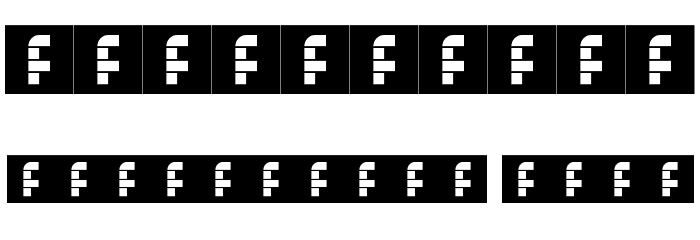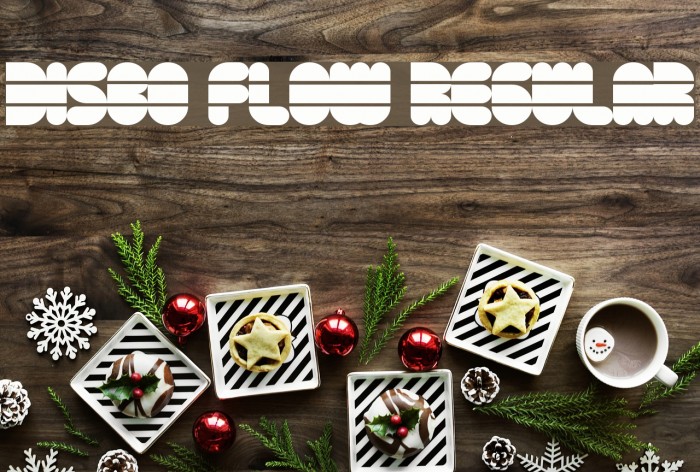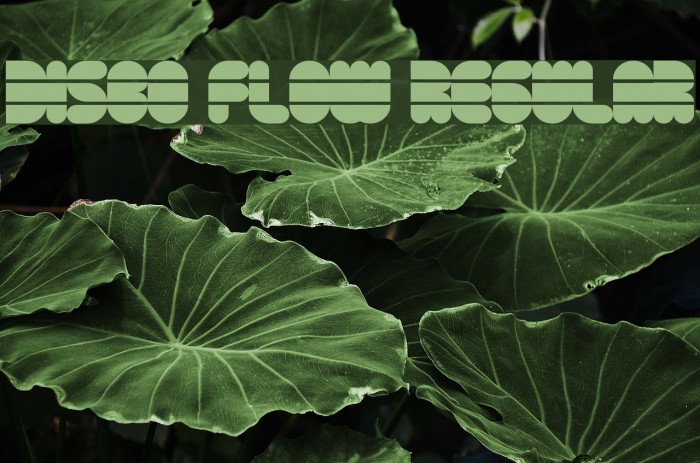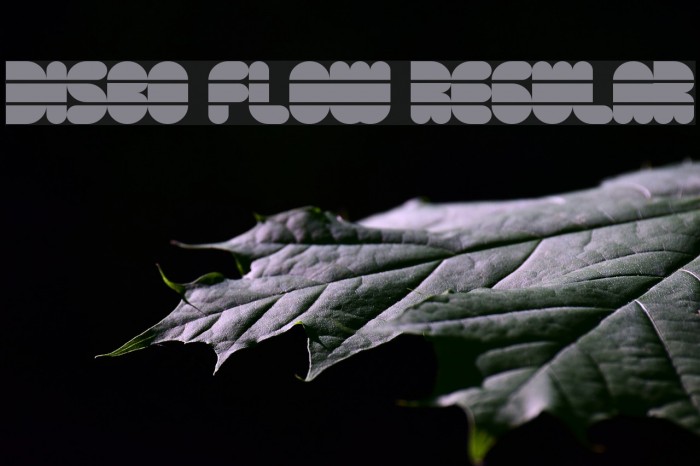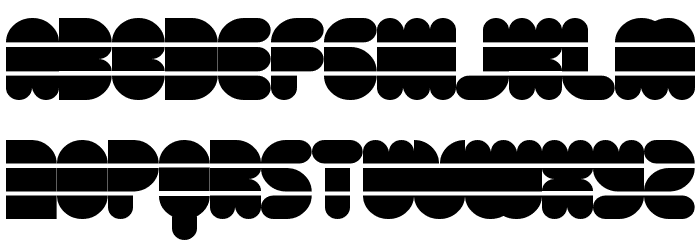
Disco Flow Regular Font
Disco Flow Regular Description
This font features a bold, geometric design with a distinct retro flair. The characters are constructed from thick, rounded shapes that create a sense of rhythm and movement, reminiscent of the disco era. The letters are formed by combining horizontal and vertical segments, giving them a modular appearance. This style is highly decorative, making it ideal for eye-catching designs. The font's unique structure and playful aesthetic make it stand out, perfect for projects that require a touch of nostalgia and fun.
| Overall Style | Vintage |
| Proposed Projects | Ideal for music album covers, event posters, retro-themed branding, and creative advertising campaigns. |